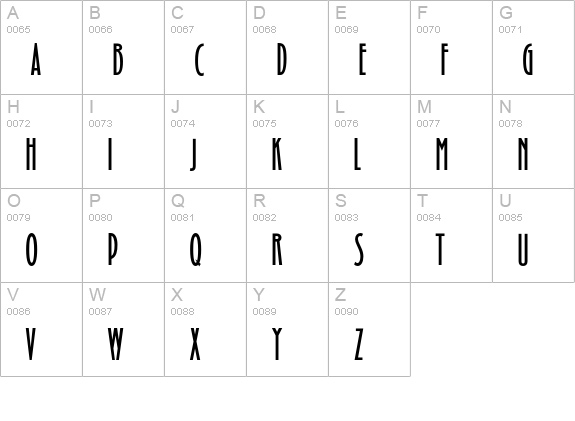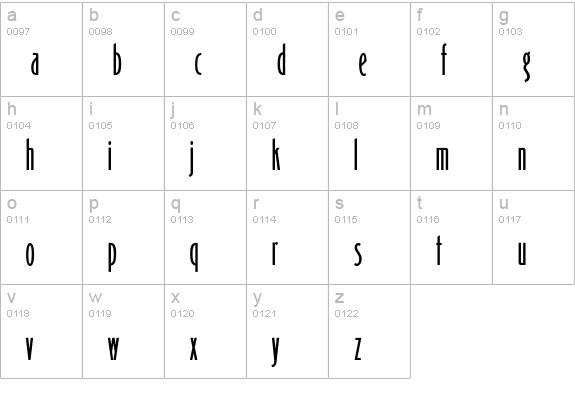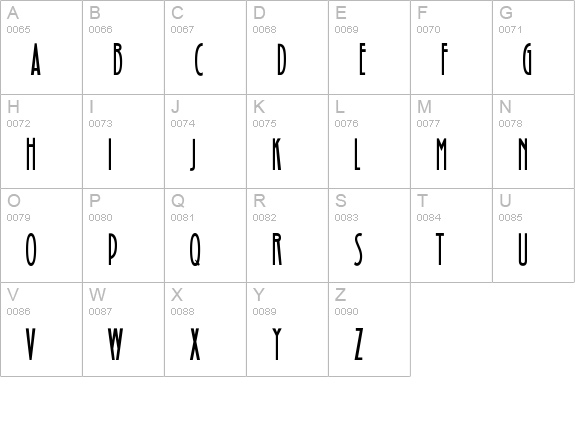
OPTICarling-Light Font Details
OPTICarling-Light is a refined, elegant variant in the OPTICarling typeface family \xE2\x80\x94 well suited to elegant body text, refined sub-headings, and luxury branding.
OPTICarling-Light is a modern and sleek font that exudes elegance and sophistication. With its clean lines and stylish curves, this font is perfect for adding a touch of class to any design project. The light weight of the font gives it a delicate and airy feel, making it ideal for use in headers, titles, and other prominent text elements. What's even better is that OPTICarling-Light is available for free download at FontsMarket.com. So you can easily add this stunning font to your collection without any cost. Whether you're working on a website, a logo, a brochure, or any other creative project, OPTICarling-Light will elevate your design and make it stand out. Download it today and let your creativity shine with this beautiful and free font.